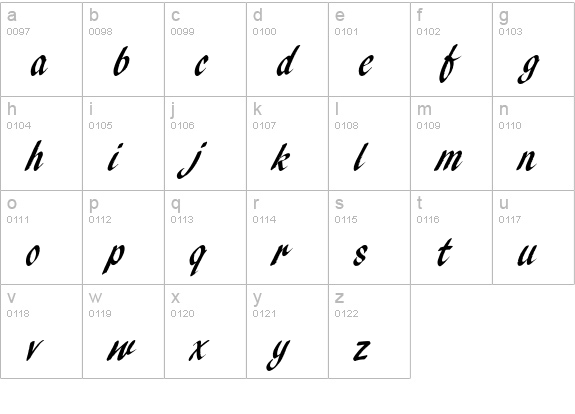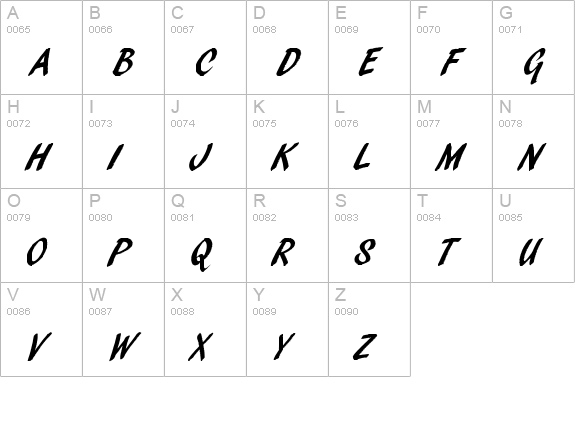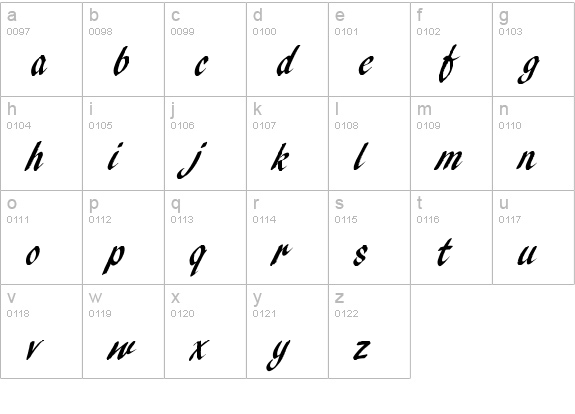
PendryScriptEF-Regular Font Details
PendryScriptEF-Regular is the standard, neutral variant in the PendryScriptEF typeface family \xE2\x80\x94 well suited to general body text, paragraphs, and standard typographic work.
PendryScriptEF-Regular is a stunning and elegant font that brings a touch of sophistication to any design project. With its flowing and graceful curves, this font exudes a sense of timeless beauty that is perfect for wedding invitations, branding materials, and high-end editorial layouts. This font features a unique blend of classic calligraphy and modern typography, resulting in a truly versatile typeface that can be used for both formal and informal occasions. The letters are carefully crafted, with each stroke meticulously designed to create a harmonious and balanced aesthetic. What sets PendryScriptEF-Regular apart is not only its captivating design but also its availability as a free font. Yes, you read that right – this exquisite font is freely available to download at FontsMarket.com. Now, you can enjoy the beauty and elegance of PendryScriptEF-Regular without any cost, making it an invaluable addition to your font collection. Whether you are a professional graphic designer or a DIY enthusiast, PendryScriptEF-Regular is sure to elevate your projects to new heights. Its versatility, combined with its timeless appeal, ensures that it will remain a go-to font for years to come. So why wait? Head over to FontsMarket.com and experience the beauty of PendryScriptEF-Regular for yourself. Download it now and unlock a world of possibilities for your next design endeavor.